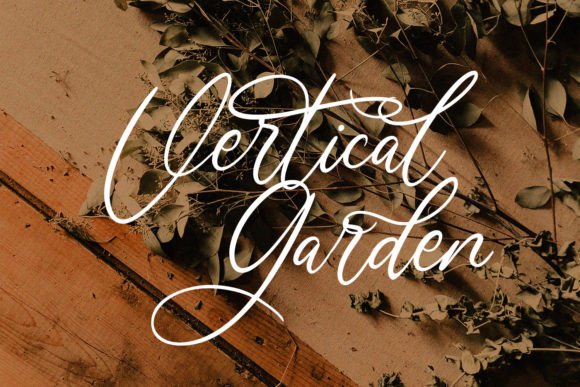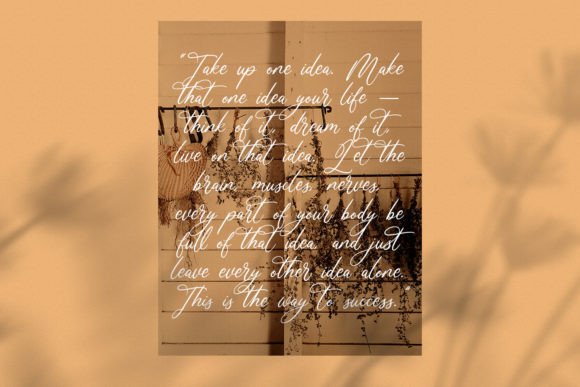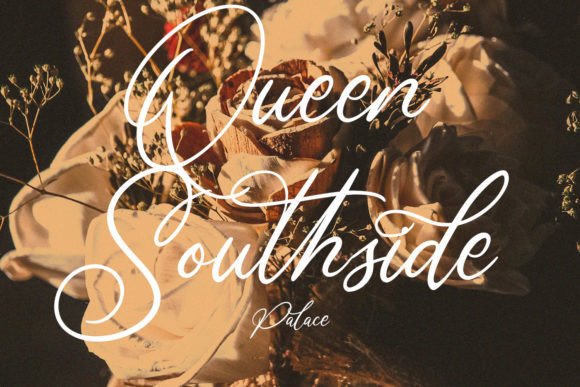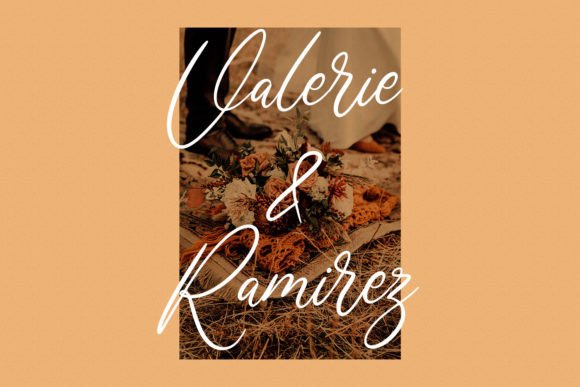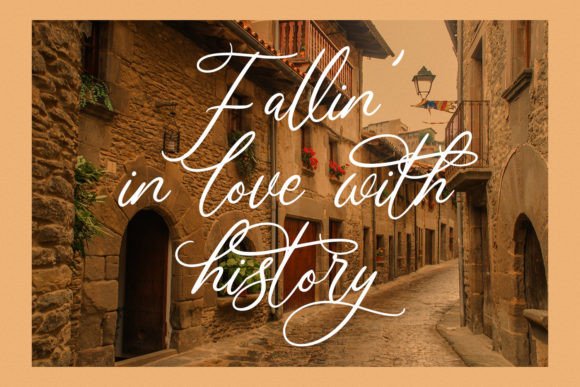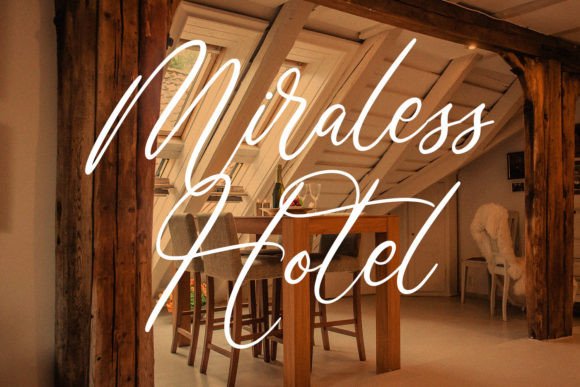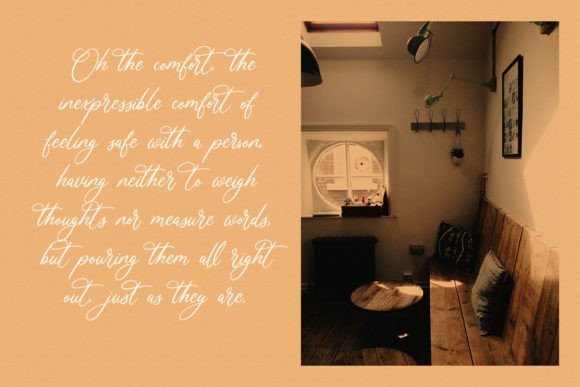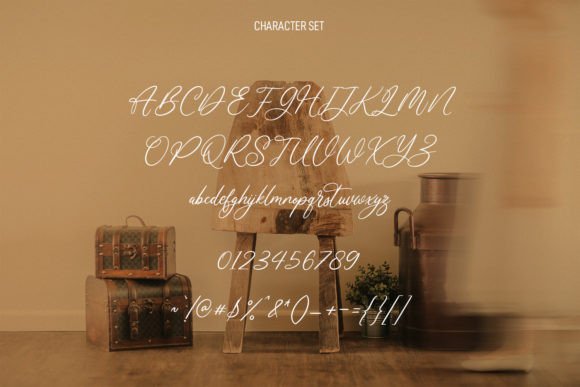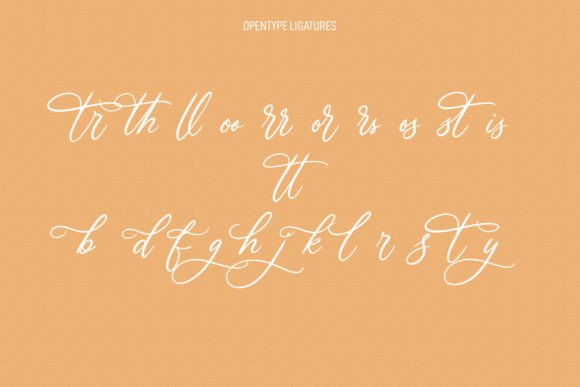
Seelyville Font
Seelyville Font: Charming Script for Elegant Designs
“Seelyville” is a delightful handwritten font that combines charm and elegance. It’s perfect for various design applications, from wedding invitations to business cards.
Key Features of Seelyville Font
• Elegant Style: Seelyville brings grace and refinement to designs.
• Versatile Use: Suitable for many projects, including greeting cards and logos.
• Authentic Look: Adds a personal touch to your typography.
Wedding Stationery
Seelyville’s charming style is ideal for creating beautiful wedding invitations and thank you cards that convey heartfelt messages.
Use Seelyville to design sophisticated logo designs and branding materials that exude class and authenticity.
Quotes and Typography
The font’s elegant script is perfect for creating visually stunning quotes and typographic designs.
Why Choose Seelyville Font?
Seelyville offers more than just beautiful letters. Here’s why it stands out:
• Enhances overall aesthetics with its timeless beauty
• Conveys warmth and sincerity effectively
• Adapts well to various design themes
By using Seelyville, you open up new design possibilities. Its elegant style works well in many contexts, from business cards to poster designs. The font’s ability to convey emotions can inspire creative ideas and help you approach projects from a fresh perspective.
If you’re looking for a font that combines charm with elegance, Seelyville is an excellent choice. It’s perfect for adding a touch of sophistication to your work, especially for projects that need a personal, refined feel.
Explore how Seelyville can transform your designs. From branding projects to personal creations, this font brings a graceful and captivating quality to your work.